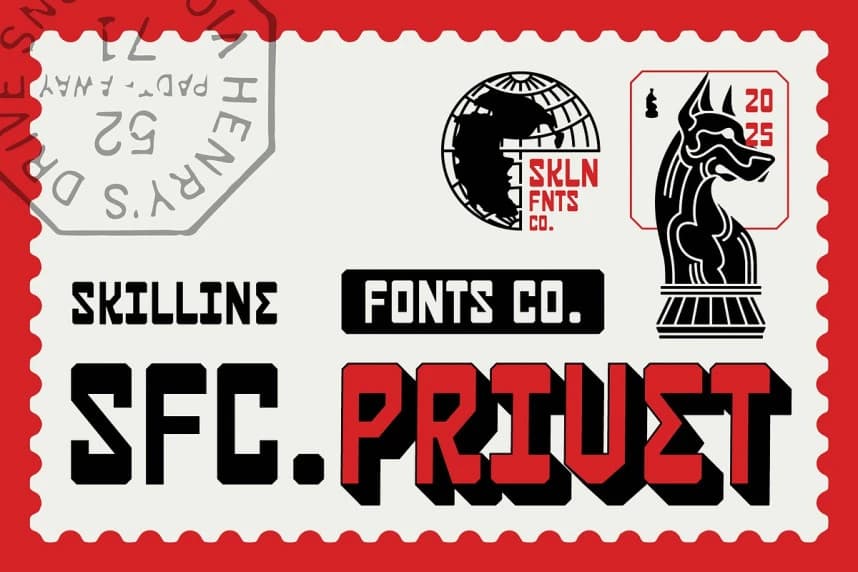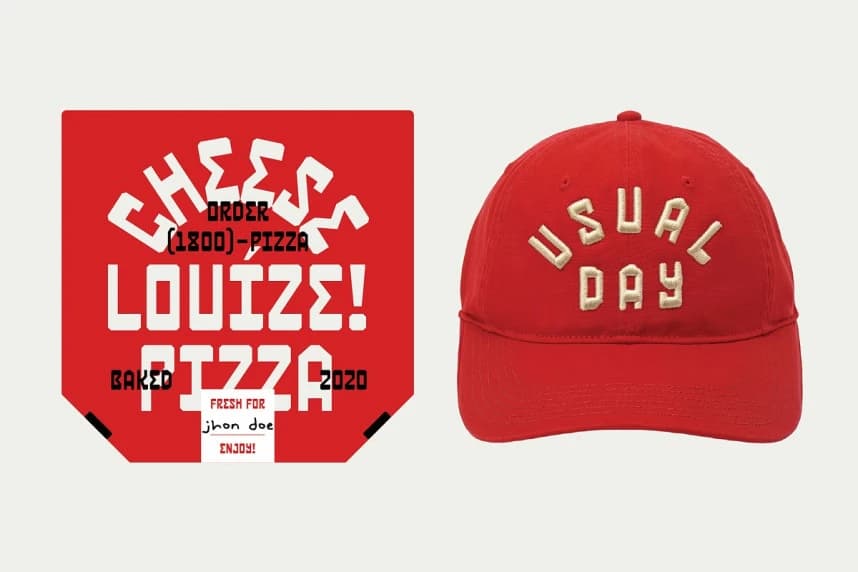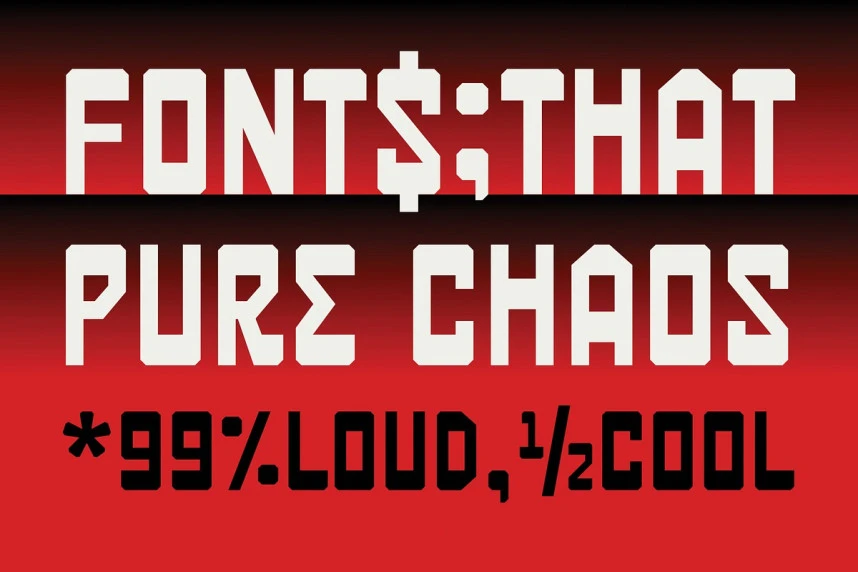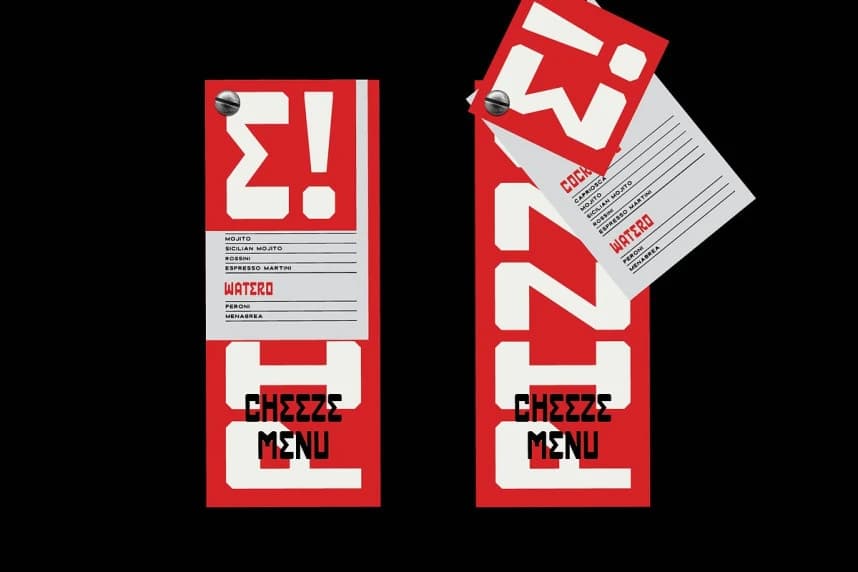
SFC Privet Font
SFC Privet Font is a bold geometric display font inspired by industrial architecture, mechanical structure, and modern brutalist aesthetics. Designed with sharp angular cuts, compact proportions, and confident weight distribution